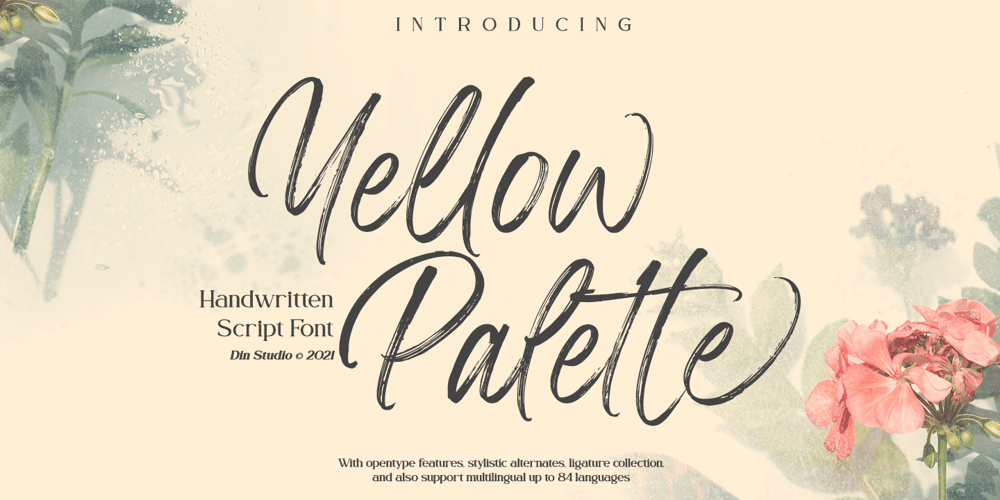
Yellow Palette
Yellow Palette font
Yellow Palette Font Family was designed by Donis Miftahudin and published by Din Studio. Yellow Palette contains 1 styles and family package options. Are you looking for a handwritten font? Do you dream of creating headings that stand out and inspire creativity, imagination, and endless fun? Wait no more, we will give you the best choice.Yellow Palette-A Handwritten FontYellow Palette is a gorgeous font, designed with a modern vibe. This handwritten font is perfect for anything adventurous, and direct. Every stroke and curve was created to entice happiness and elegance. A real head-turner for your presentation, designs, branding, quotes, invitation, website illustrations, and much more.Our font always includes Multilingual Support to make your branding reach a global audience. Inspire your audience, clients, or guests with this beautiful, statement font. Features: Ligatures Stylistic Sets PUA Encoded Numerals and Punctuation Thank you for downloading premium fonts from Din Studio